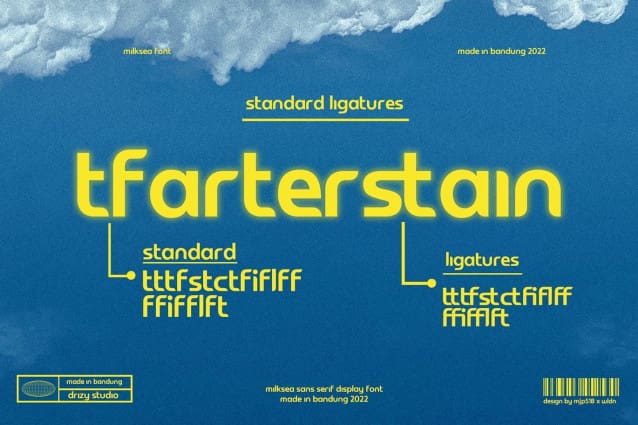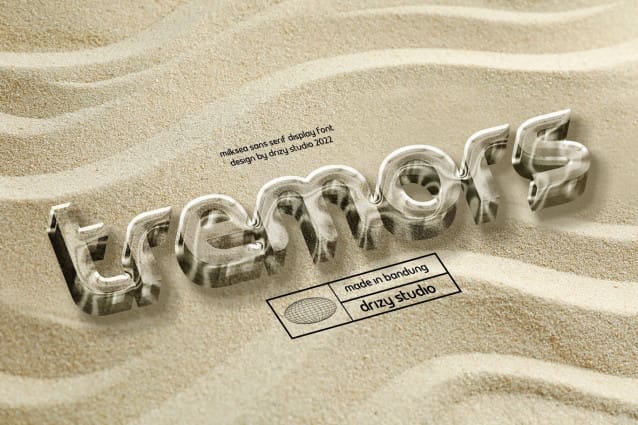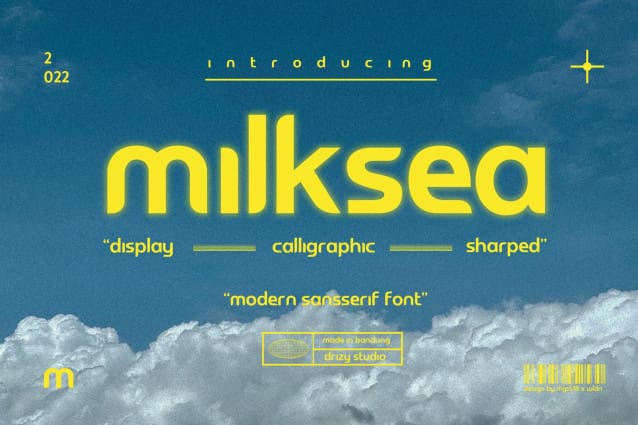
Milksea Font
Milksea Font is a modern sans serif font from Drizy studio. Offering all the basic styles you’ll need for a modern theme to your project.